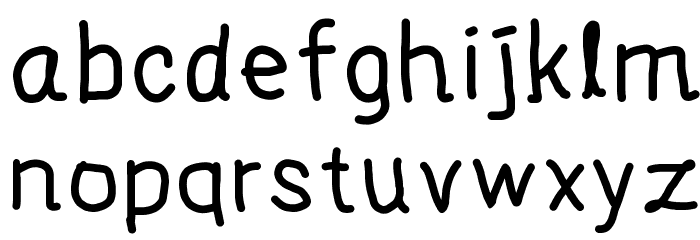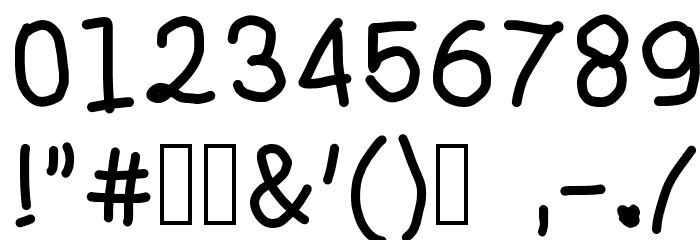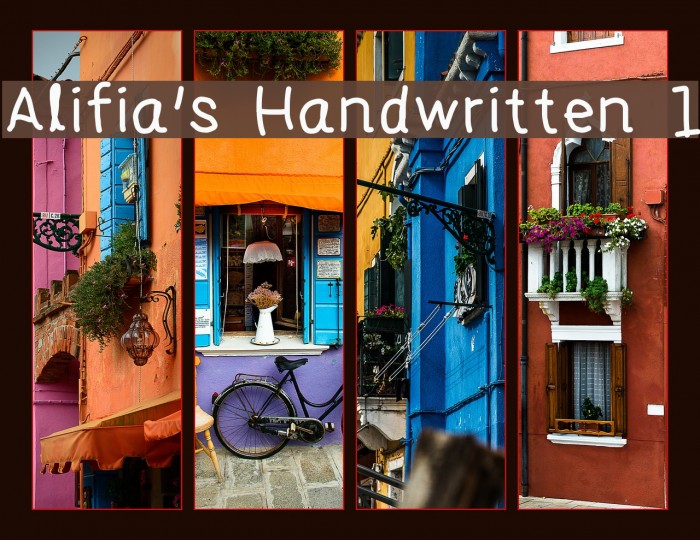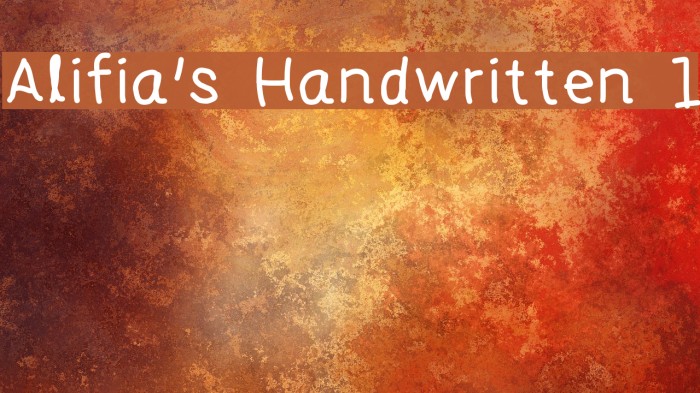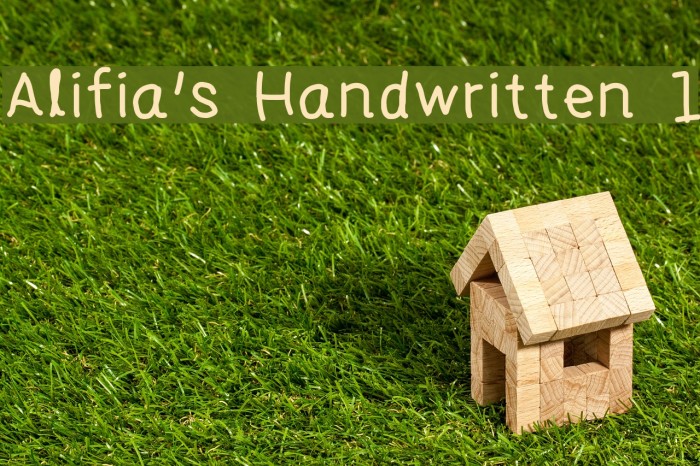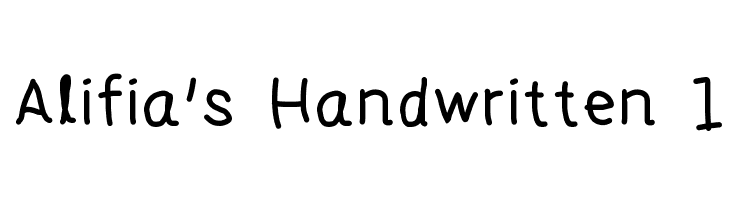
Alifia's Handwritten 1 Font
This font features a playful and casual handwritten style, characterized by its uneven strokes and organic flow. The letters have a slightly irregular baseline, adding to the informal and approachable feel. The uppercase and lowercase letters maintain a consistent style, with rounded edges and a slight tilt that mimics natural handwriting. The numerals and special characters follow the same design principles, ensuring a cohesive look across all glyphs. This font is ideal for projects that require a personal touch, such as invitations, greeting cards, or creative branding materials.
A playful, casual handwritten font with an organic flow and rounded edges.
- Proposed Projects: Ideal for invitations, greeting cards, creative branding, and personal projects.
- Overall Style: Casual, Playful
- Use Case: Headlines, Logos, Invitations